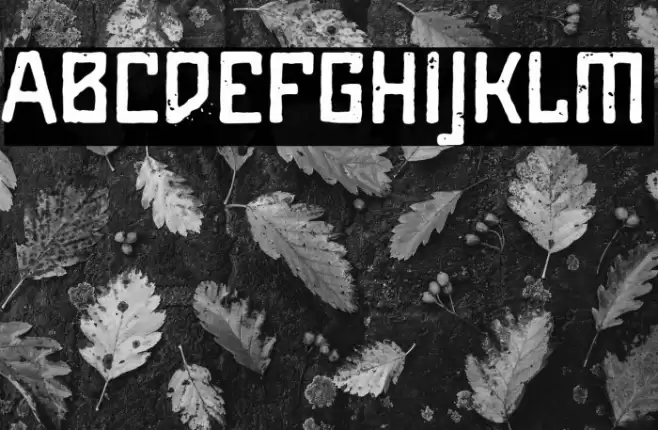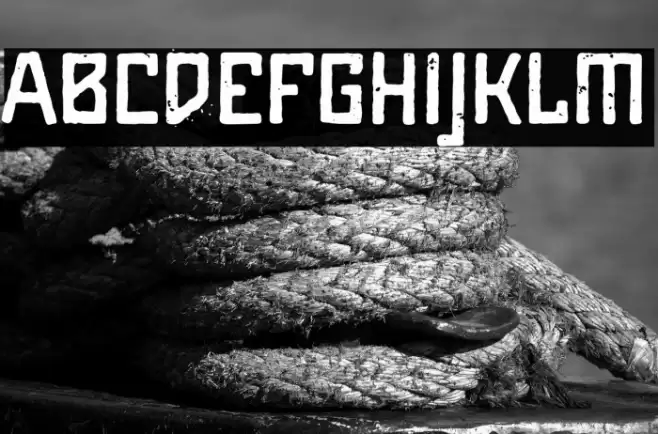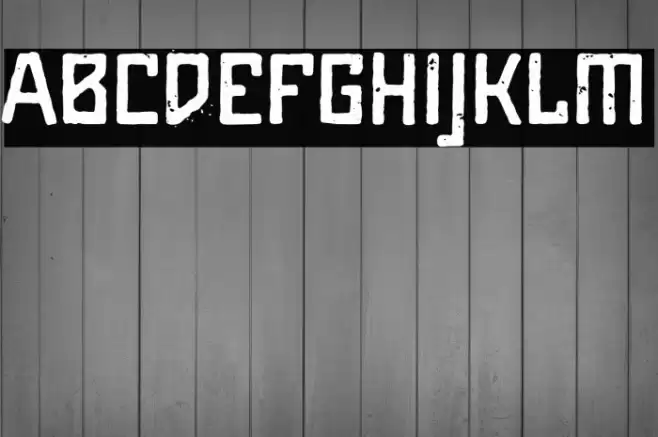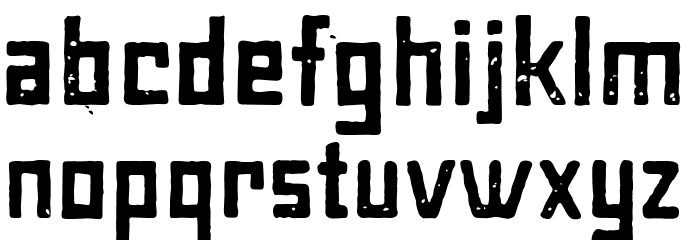
Maiers Alte Nr.8 Reduced Bold Font
Maiers Alte Nr.8 Reduced Bold Description
This font features a bold and rugged style with a distressed texture that gives it a vintage and handcrafted appearance. The characters are blocky and geometric, with a consistent thickness throughout, lending a strong and sturdy feel. The uppercase and lowercase letters maintain a uniform height, and the overall design is reminiscent of early 20th-century industrial typefaces. The rough edges and slight imperfections add to its charm, making it ideal for projects that require a touch of authenticity and nostalgia.
A bold, distressed font with a vintage, handcrafted look from Uncategorized fonts.
- Font: Maiers Alte Nr.8 Reduced Bold
- Proposed Projects: Ideal for vintage-themed posters, branding for artisanal products, or any design requiring a rustic and authentic feel.
- Overall Style: Vintage